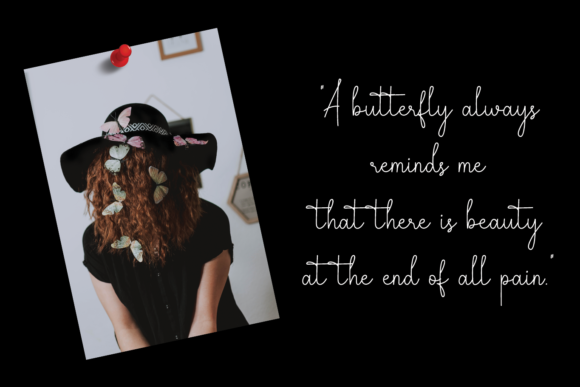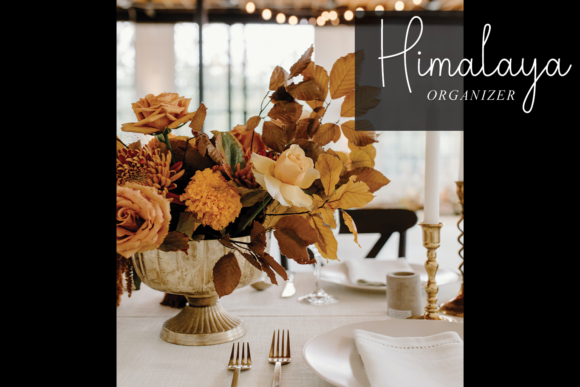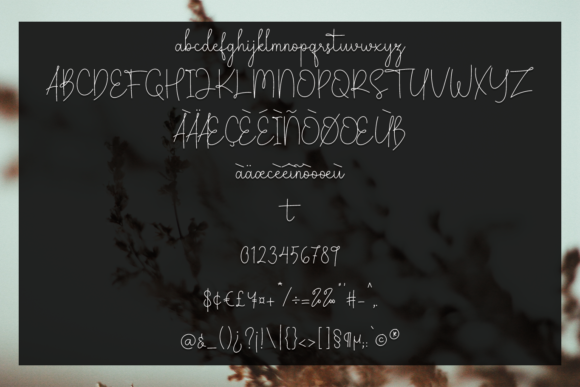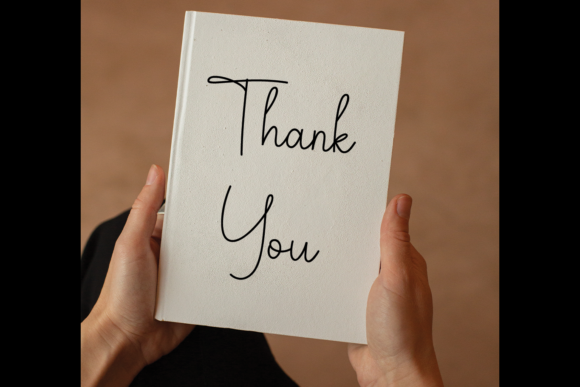
The Amelin Secret Font: A Hidden Gem for Elegant Designs
I’ll never forget the time I was working on a wedding invitation project, and my client asked for a font that was ” elegant, yet playful, and not too over-the-top.” I scoured the internet, tried out dozens of fonts, but nothing seemed quite right. That was until I stumbled upon the Amelin Secret font. 💕
This lovely script font has been a game-changer for my designs, and I’m excited to share its beauty with you. Amelin Secret exudes elegance and class, making it perfect for designers, crafters, and creative hobbyists looking to add a touch of sophistication to their projects.
An Honest Review of Amelin Secret
- 💫 Elegant and refined letterforms that add a touch of luxury to any design
- 🎨 Beautifully crafted with attention to detail, making it perfect for high-end designs
- 🌈 Versatile and works well with a variety of color schemes and design styles
- ⚠️ Limited availability of stylistic alternates, which may limit creative flexibility
- 💻 Not suitable for very large or bold designs, as it may lose its delicate charm
- Explore the font’s glyphs and OpenType features, such as swashes and stylistic alternates, to add creative flair
The Story Behind Amelin Secret
Amelin Secret was designed by a talented type designer who wanted to create a font that was both elegant and refined. Inspired by classic calligraphy and elegant script fonts, Amelin Secret was crafted with attention to detail and a passion for beauty. The result is a font that exudes sophistication and luxury, perfect for designers and crafters looking to add a touch of elegance to their projects.
| What is the Amelin Secret font best used for? | Amelin Secret is best used for designs that require a touch of elegance and sophistication, such as wedding invitations, luxury branding, and high-end packaging. |